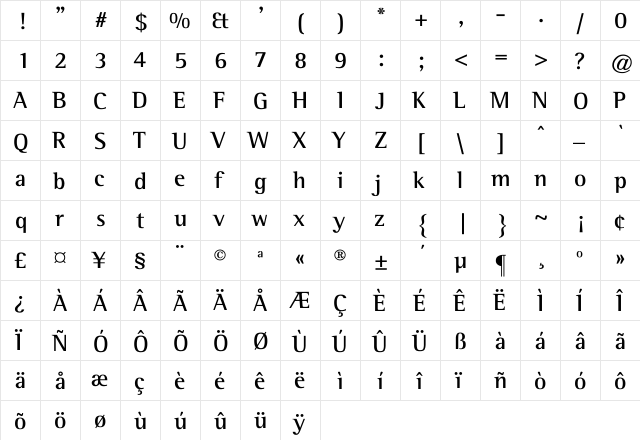
Rotary Regular
Design Context for Rotary Typeface
Rotary takes a measured approach to typography — its balanced proportions and neutral character make it a reliable workhorse for both digital and print work.